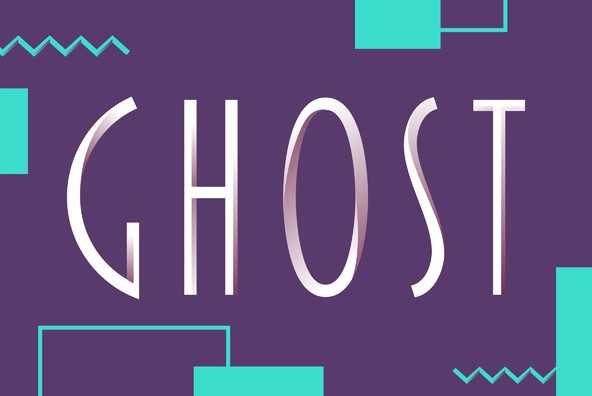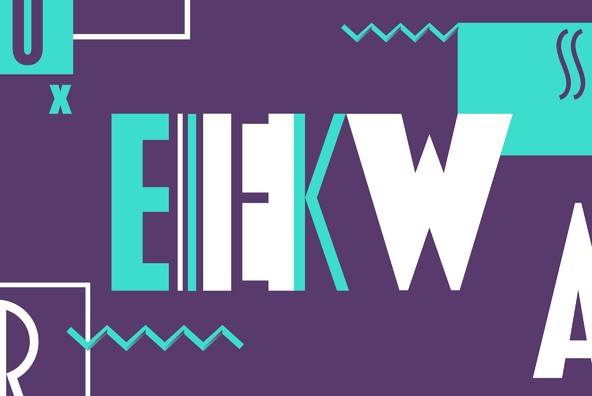
Blakely Font
Blakely is an all-caps Art Deco design. It is based on the logotype of the Signals mail order gift catalog designed by Mark Simonson in 1993.